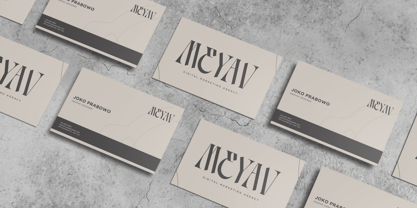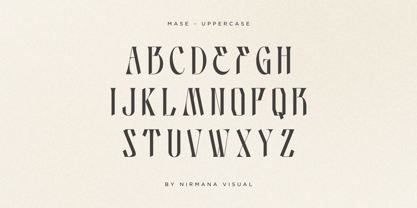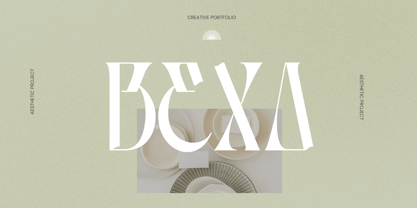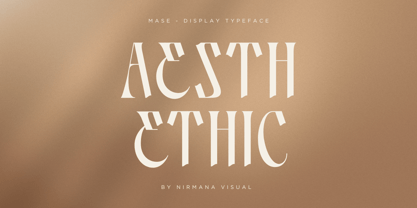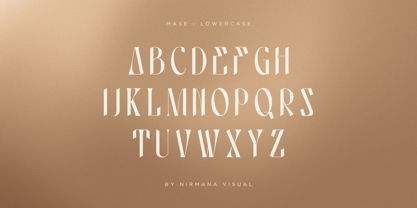
Mase
by Nirmana Visual
The Mase Font Family was designed by Sigit Dwipa and published by Nirmana Visual. Mase contains 1 styles. More about this family
Introducing our Mase Modern Display Serif, a perfect fusion of elegance and versatility tailored for contemporary branding. Designed to make a bold yet refined statement, this font is ideal for businesses looking to stand out in today's competitive market.
• Sleek and Minimalist Design: The clean lines and balanced proportions ensure readability and sophistication.
• Versatile Applications: Perfect for logos, packaging, website headers, social media graphics, and marketing materials.
• Timeless Appeal: The modern aesthetic adapts seamlessly to various industries, from fashion and tech to lifestyle and hospitality.
Whether you're building a brand identity from scratch or refreshing an existing one, our modern font delivers the perfect blend of style and functionality, leaving a lasting impression on your audience.
Designers: Sigit Dwipa
Foundry: Nirmana Visual